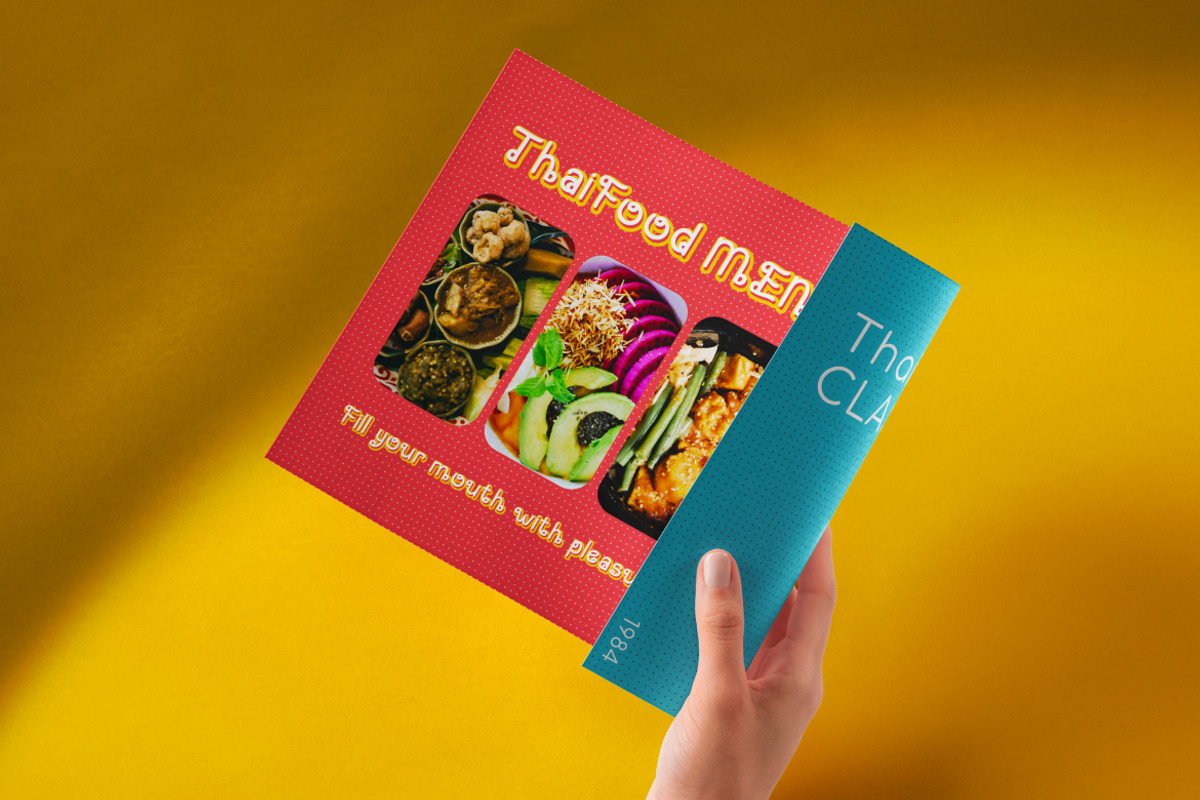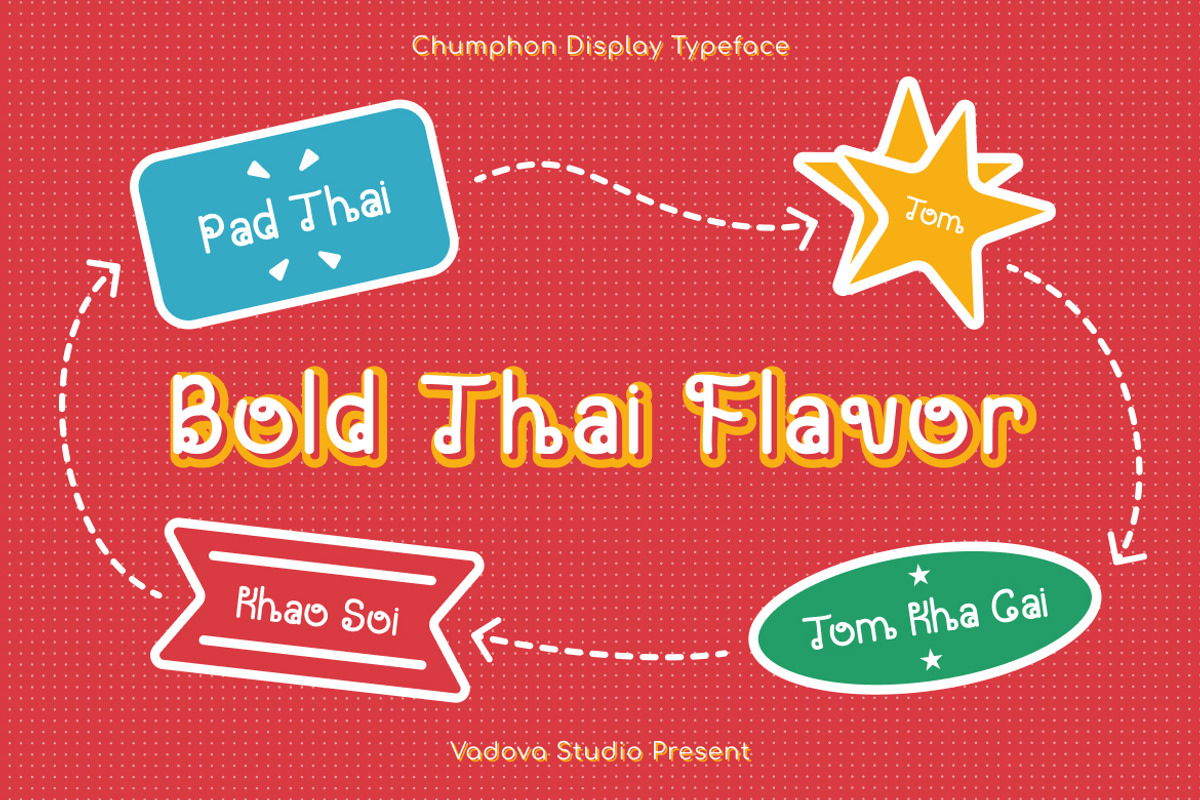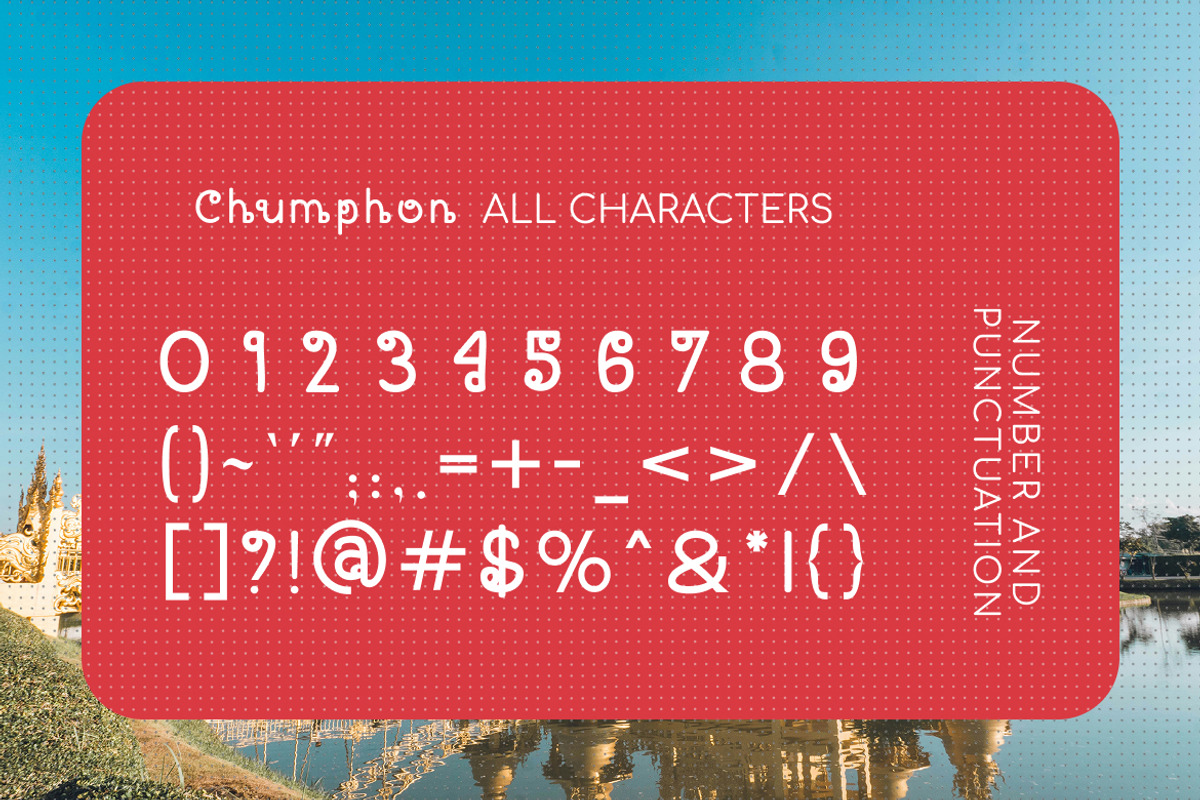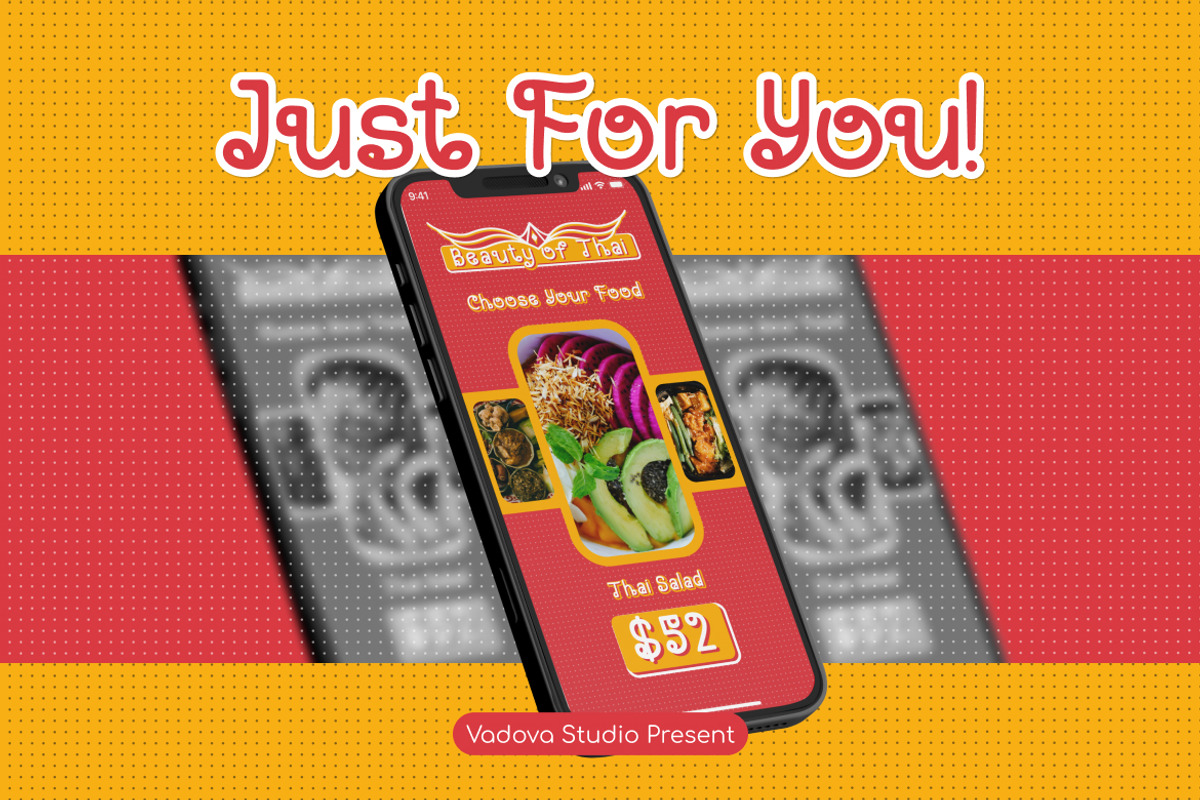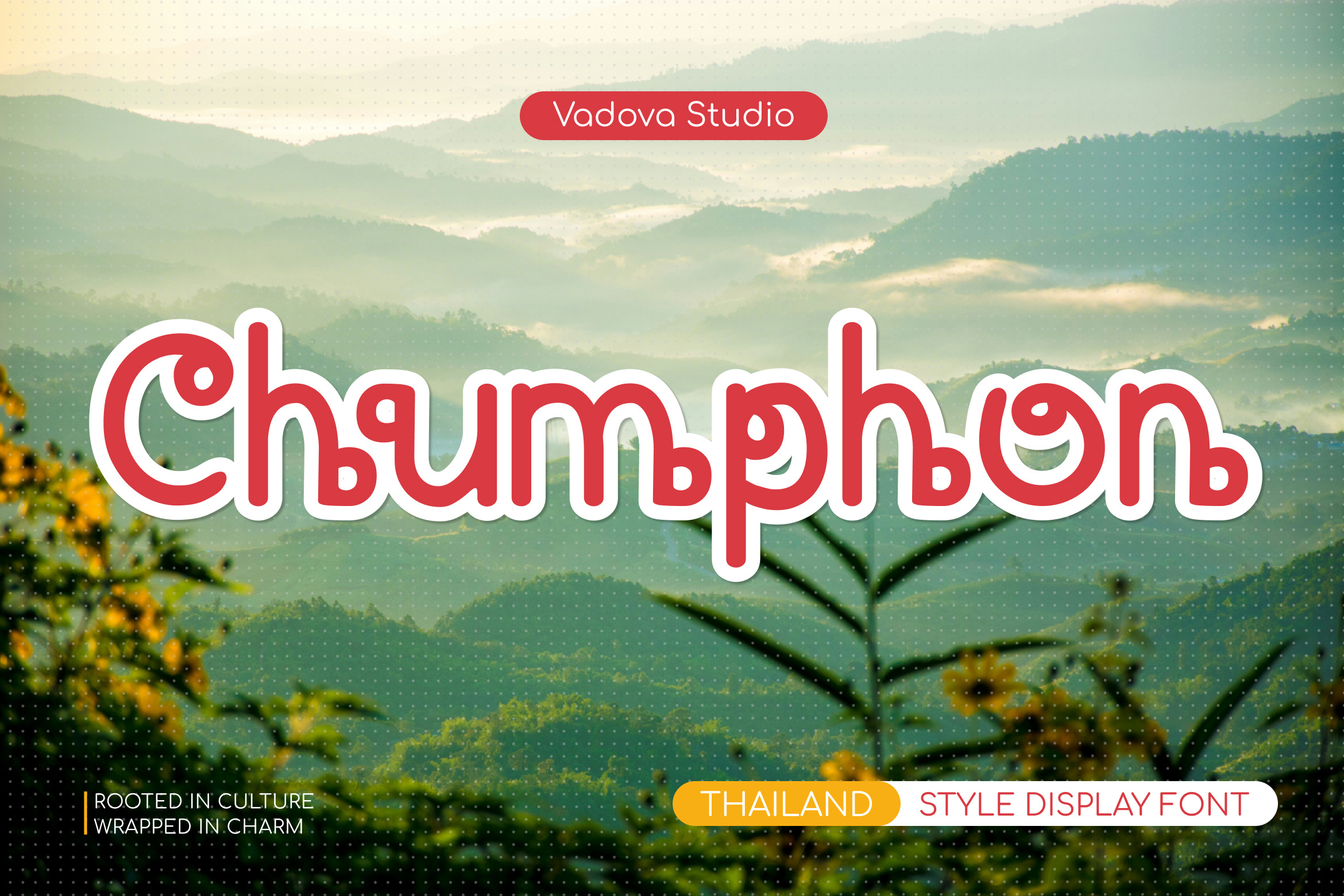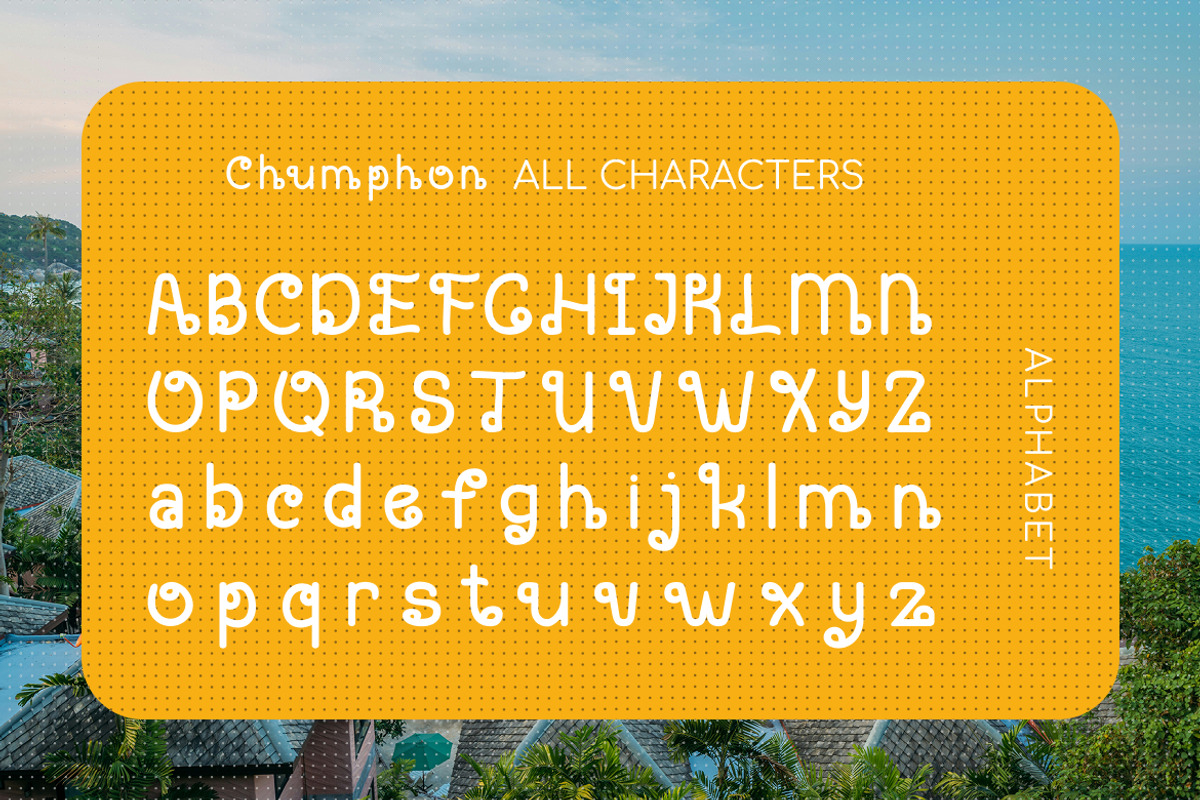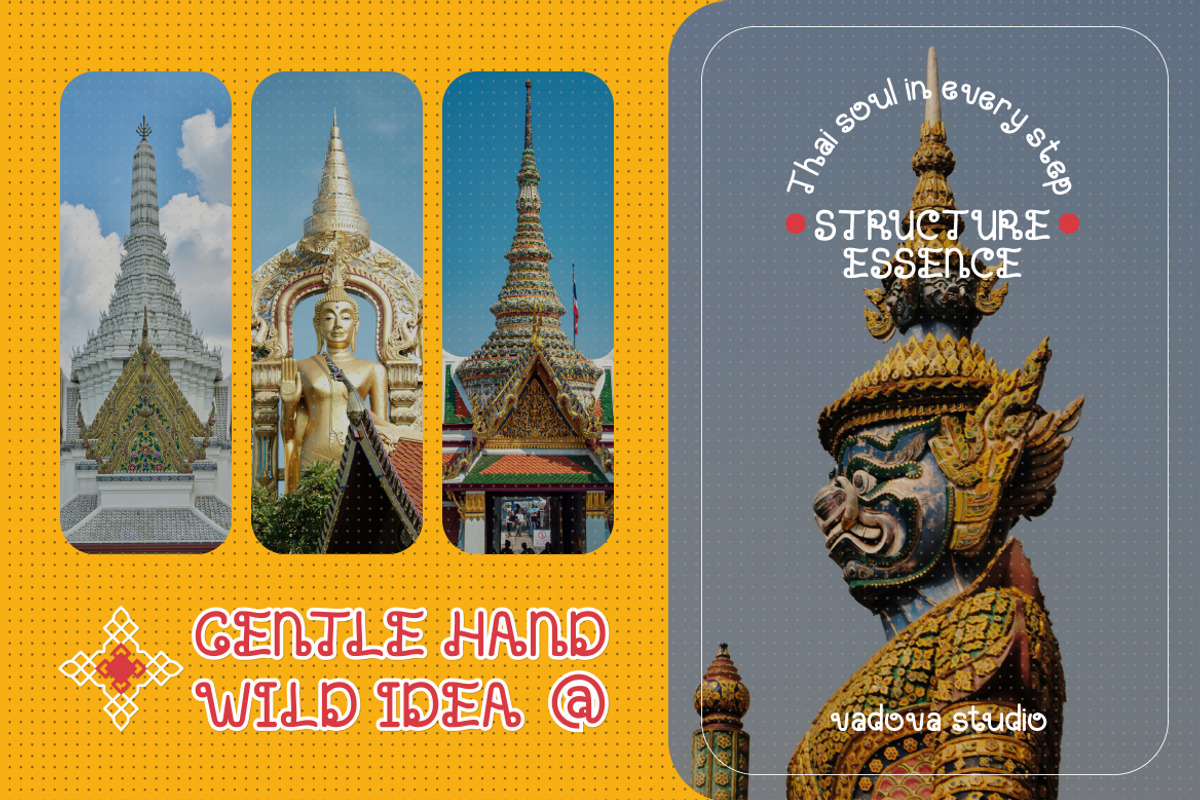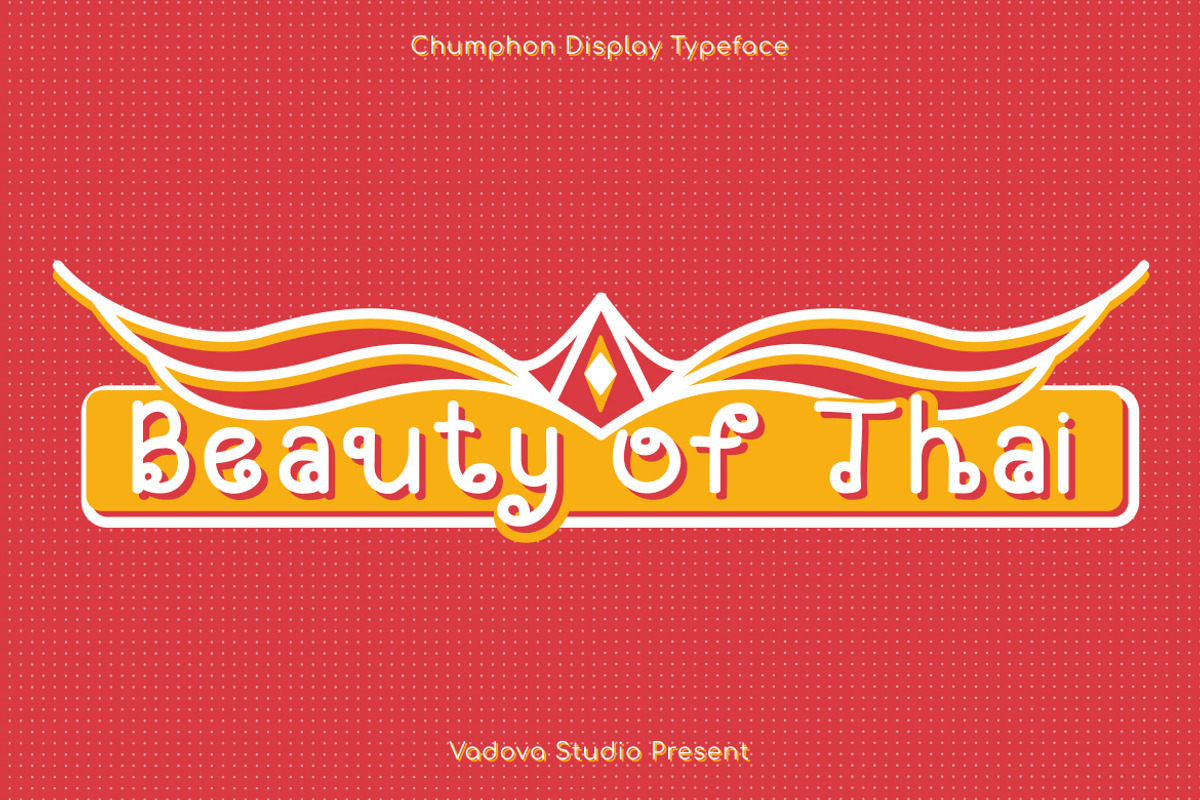
Chumphon – Thailand Style Font
Chumphon is a Thailand-style display font that captures the charm of Thai traditional letterforms in a friendly and modern way. Its rounded shapes, playful loops, and decorative curls bring the spirit of Thailand’s culture and landscape into typography. With bold outlines and soft terminals, this typeface feels inviting yet distinctive — balancing heritage and creativity in every curve.
Perfect for projects that celebrate culture, tourism, and hospitality with a joyful Southeast Asian aesthetic.
Font Highlights
Thai-inspired decorative display design
Rounded terminals and looped details
Uppercase, lowercase, numerals, punctuation
Balanced between tradition and modern fun
Why Designers Love Chumphon
Cultural Soul – Reflects Thai-inspired elegance in modern form.
Playful Geometry – Rounded details evoke warmth and friendliness.
Versatile Design – Works across packaging, travel, and event graphics.
Vibrant Energy – Adds Southeast Asian character to modern layouts.
Relevance and Use Cases is perfect for travel branding, cultural festival posters, souvenir packaging, editorial layouts, tourism campaigns, restaurant logos, and creative titles that reflect Thai aesthetics and tropical charm.